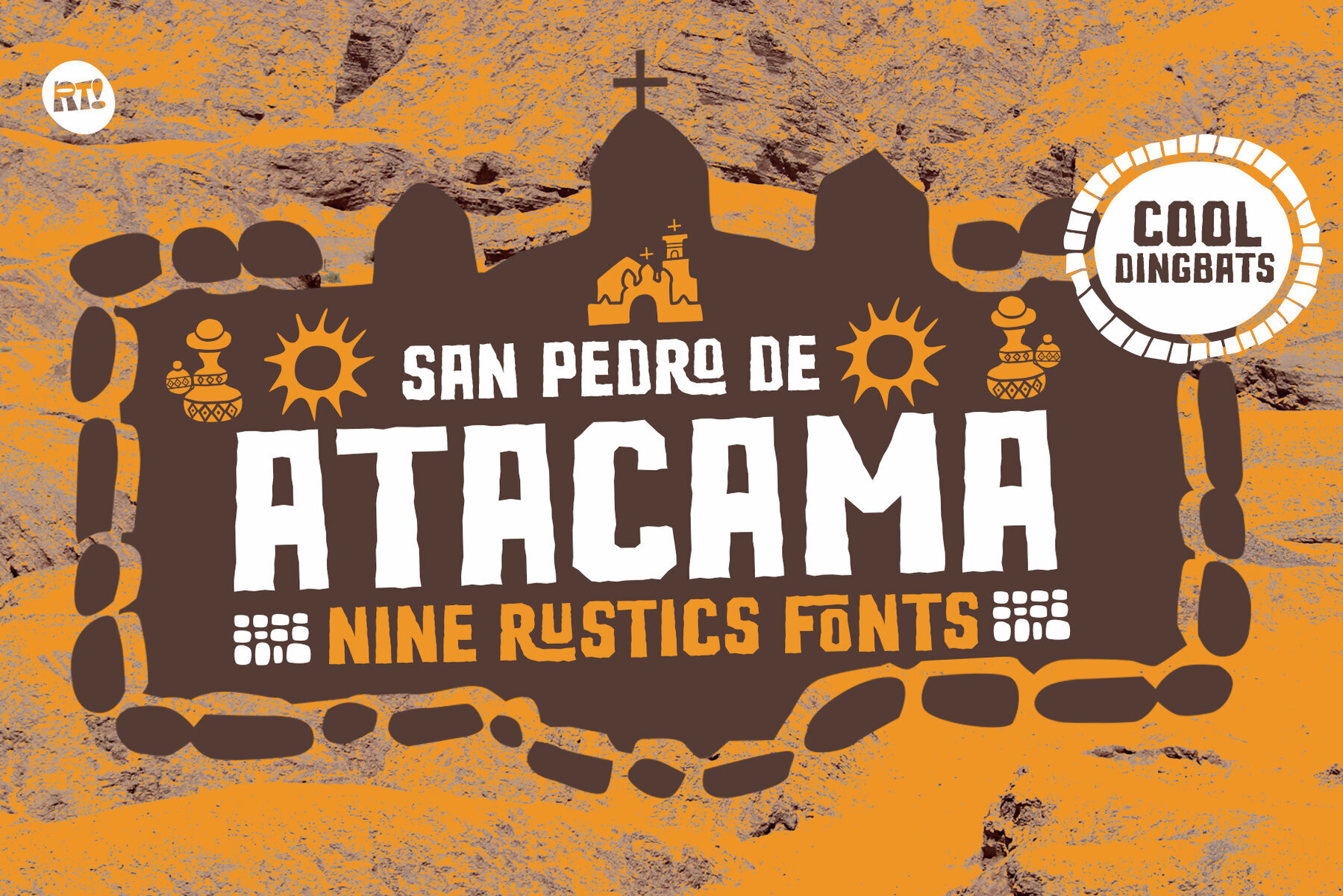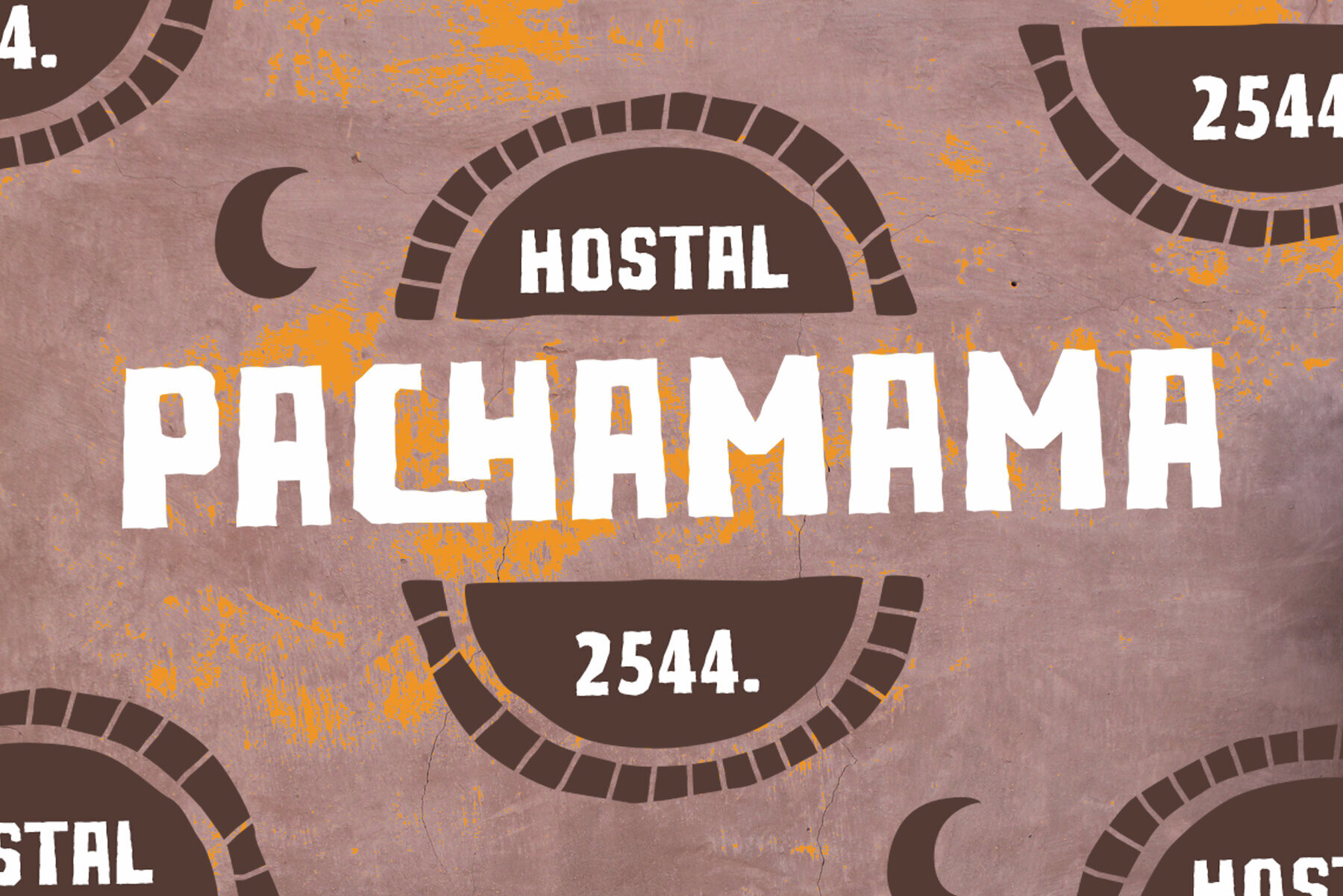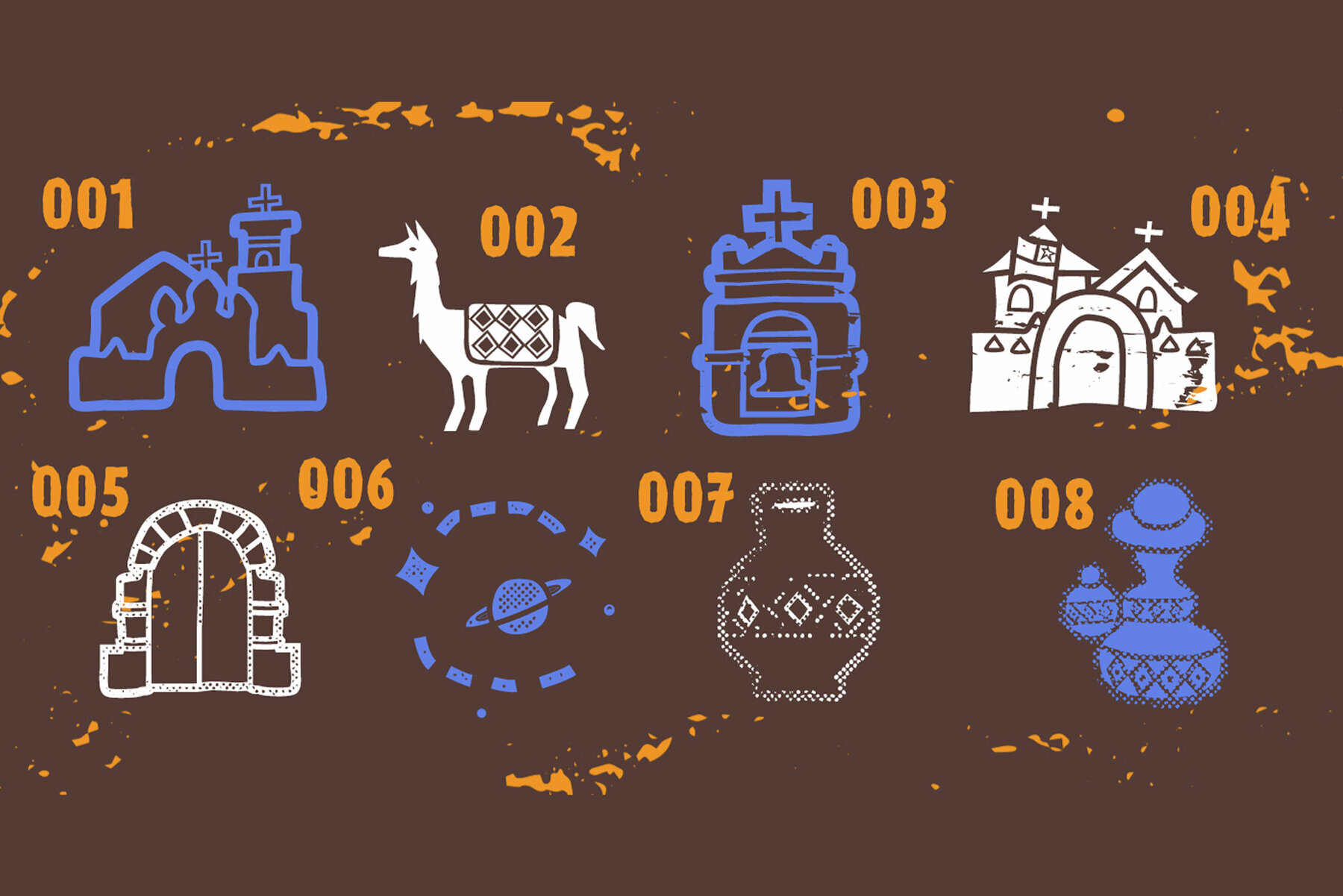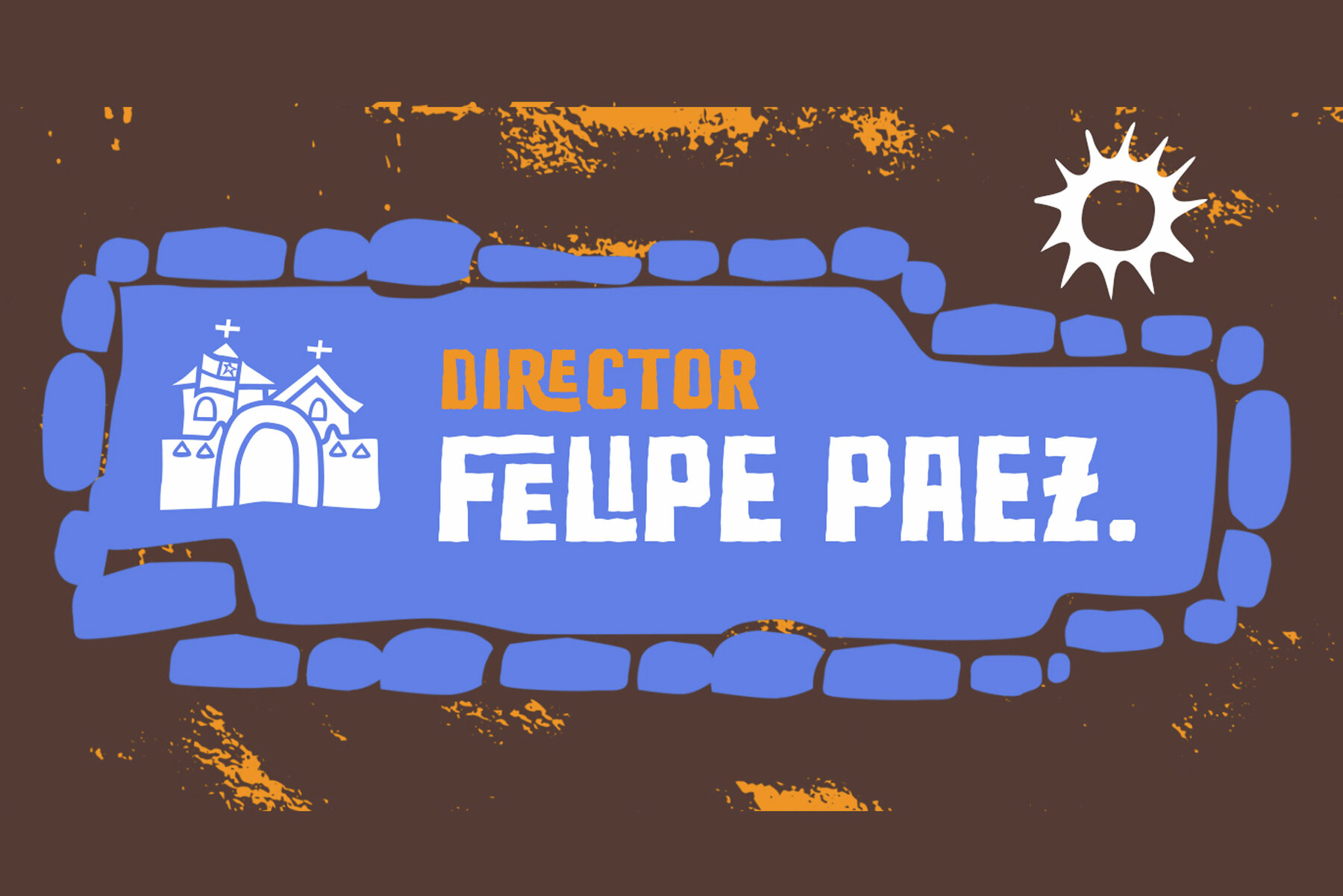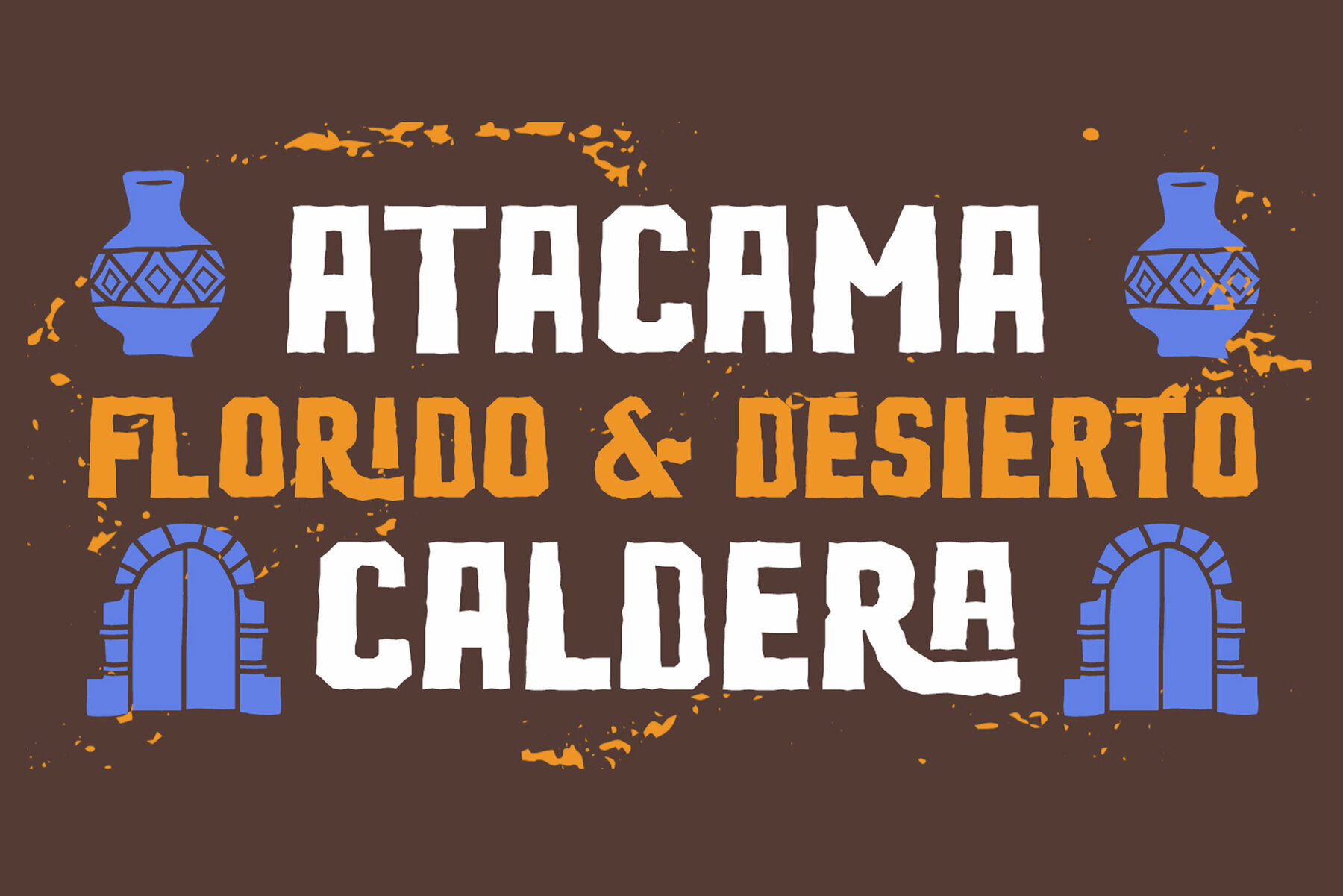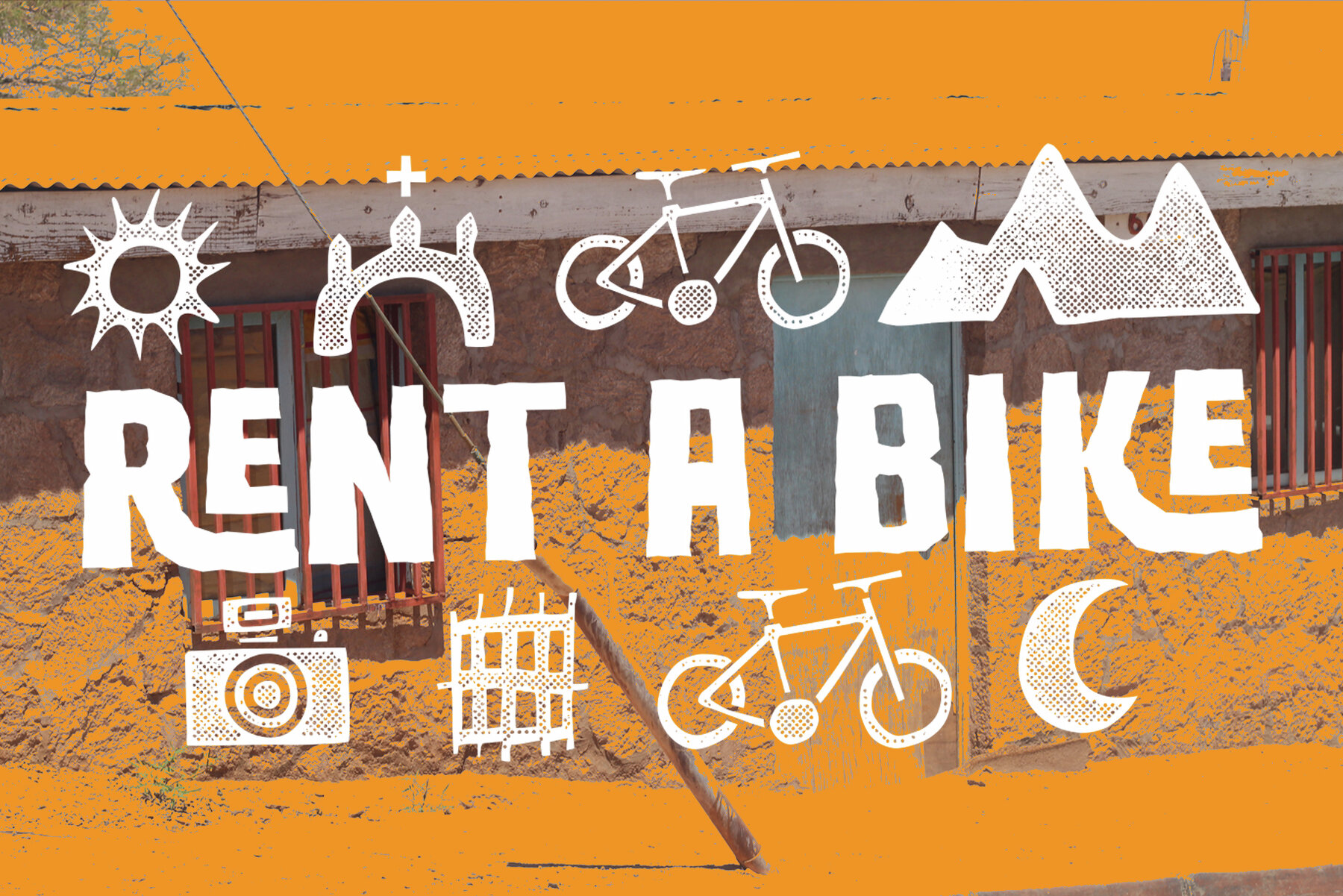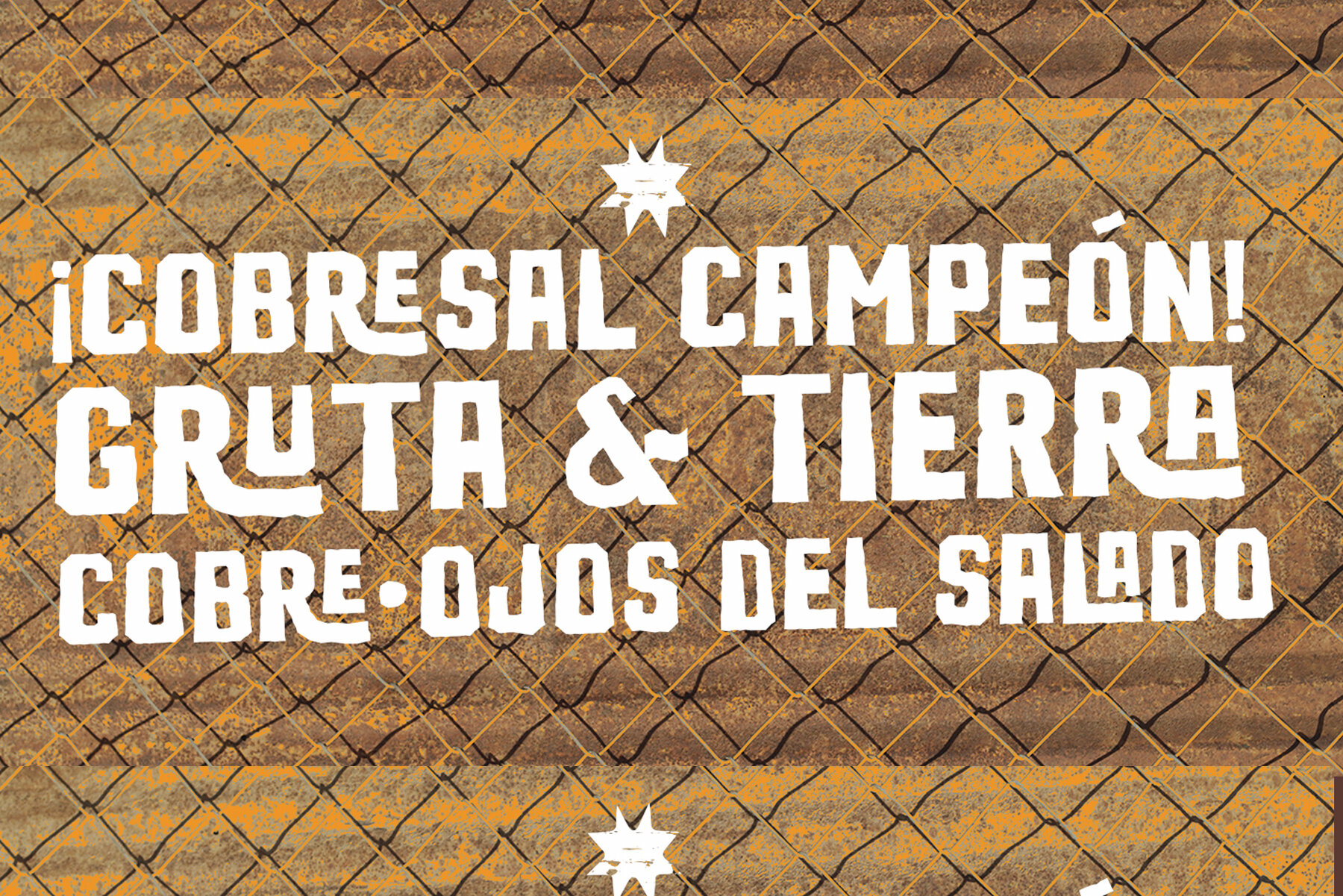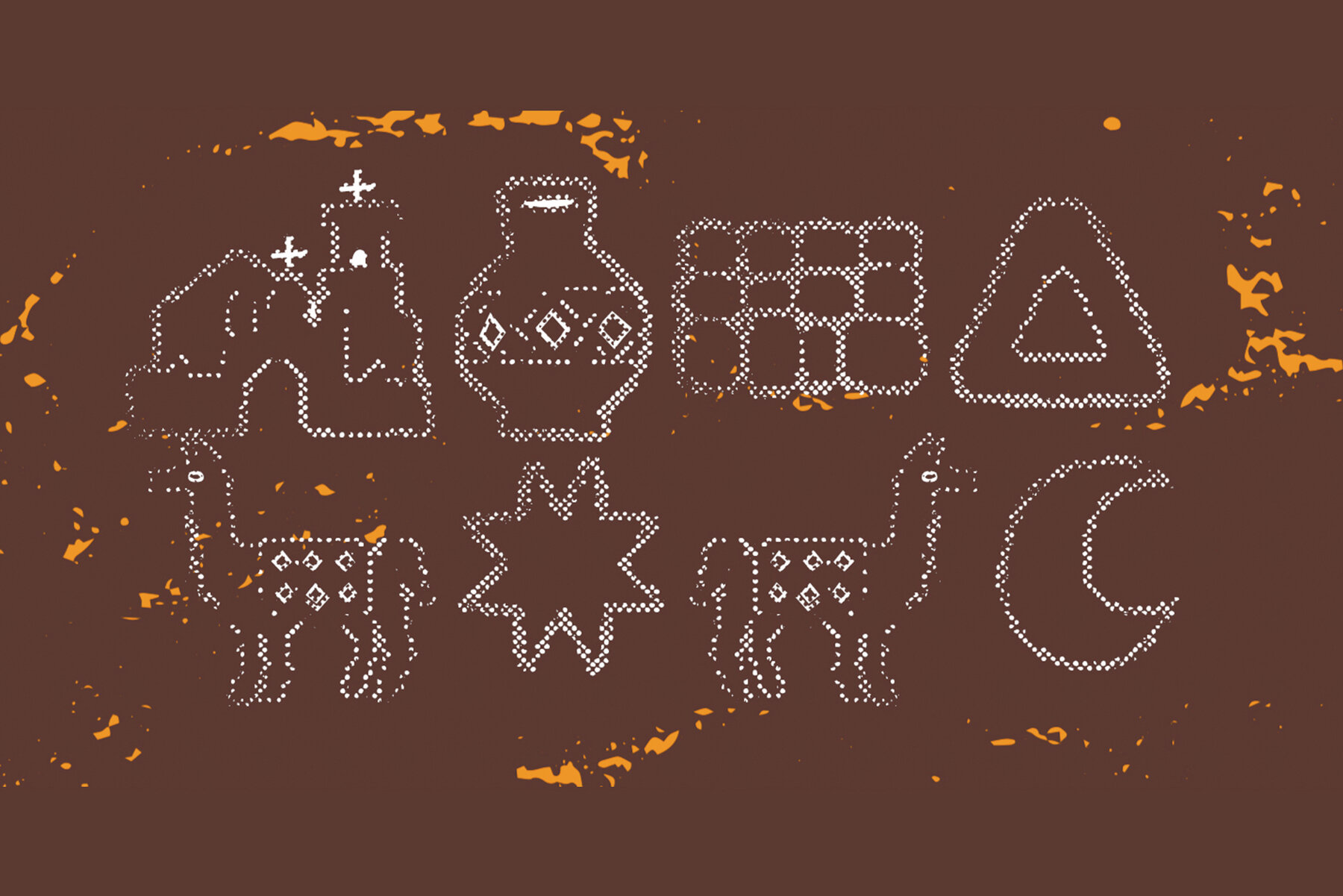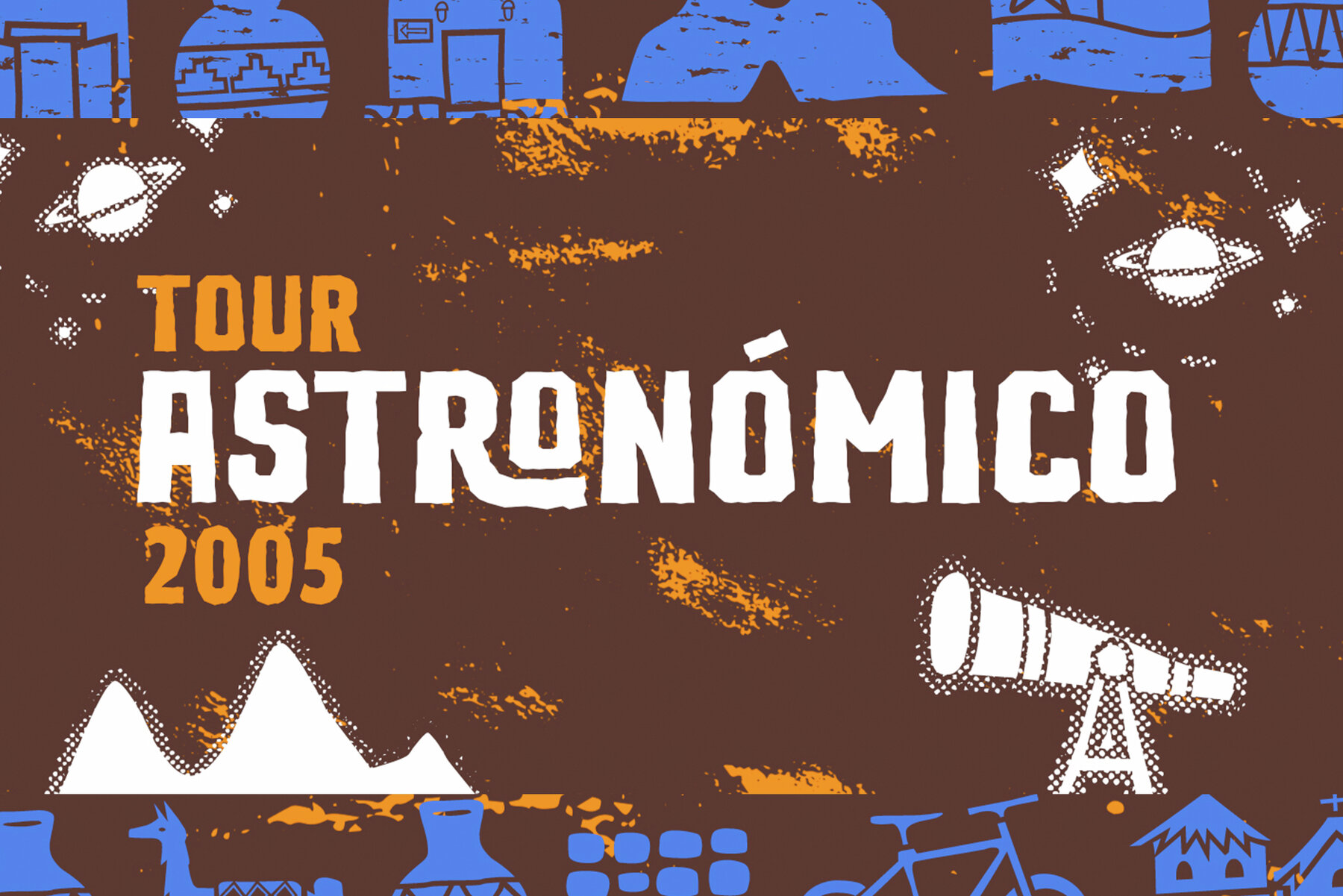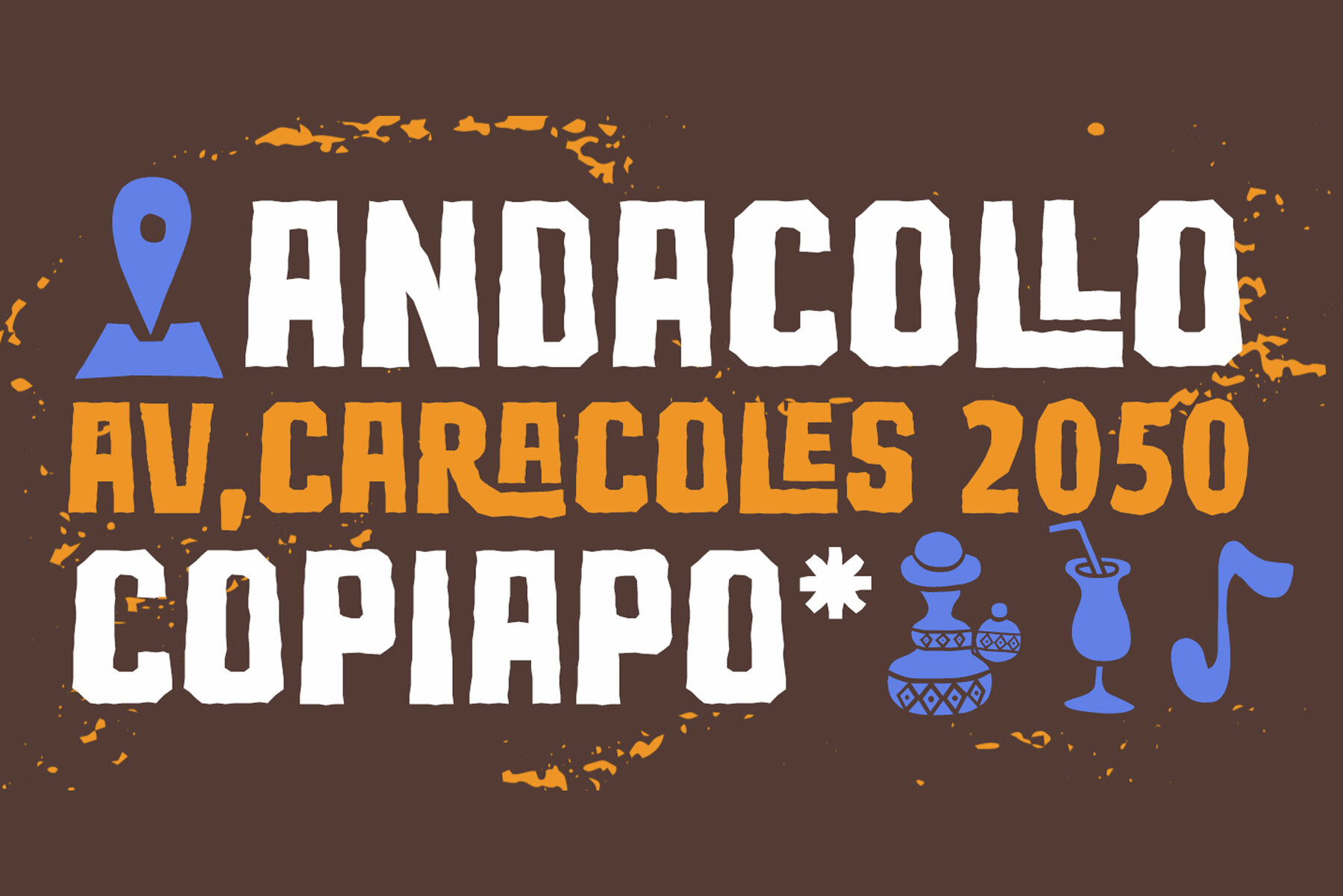
San Pedro de Atacama Font
The "San Pedro de Atacama" font by RodrigoTypo draws inspiration from the unique landscapes of northern Chile. This collection of dingbats features a variety of textures that embody the essence of the region, providing a distinctive touch to your projects. The font set is complemented by "Ruina" for an impactful title design.San Pedro de Atacama: Textured Dingbats from RodrigoTypo